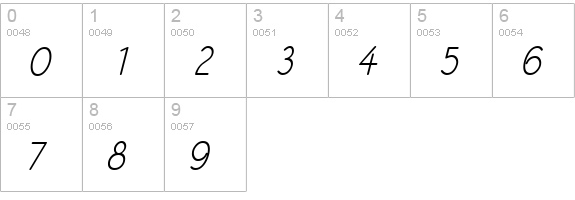
Register Sans BTN Cn Oblique Font Details
Register Sans BTN Cn Oblique is a distinctive, italic variant in the Register typeface family \xE2\x80\x94 well suited to design and typography projects.
Register Sans BTN Cn Oblique is a modern and versatile font that is perfect for adding a touch of elegance and sophistication to your designs. With its sleek and slanted style, this font is sure to catch the eye and make a lasting impression. Featuring clean lines and smooth curves, Register Sans BTN Cn Oblique exudes a sense of professionalism and professionalism. Whether you are designing a logo, creating a website, or working on a branding project, this font will elevate your design and give it a polished and refined look. What sets Register Sans BTN Cn Oblique apart is its versatility. It can be used in a variety of design projects, from print materials such as brochures and business cards to digital mediums like websites and social media graphics. Its oblique style adds a subtle twist to traditional sans-serif fonts, making it stand out without overpowering the overall design. One of the best parts about Register Sans BTN Cn Oblique is that it is freely available to download at FontsMarket.com. This means that you can easily access this font and use it in your projects without any restrictions. Whether you are a professional designer or a hobbyist, having access to high-quality fonts like Register Sans BTN Cn Oblique can greatly enhance your creativity and make your designs shine. So, if you are looking for a modern and versatile font that is both elegant and professional, look no further than Register Sans BTN Cn Oblique. Download it for free at FontsMarket.com and start creating stunning designs that leave a lasting impression.